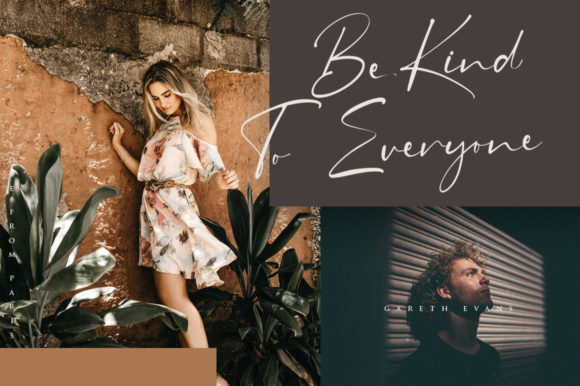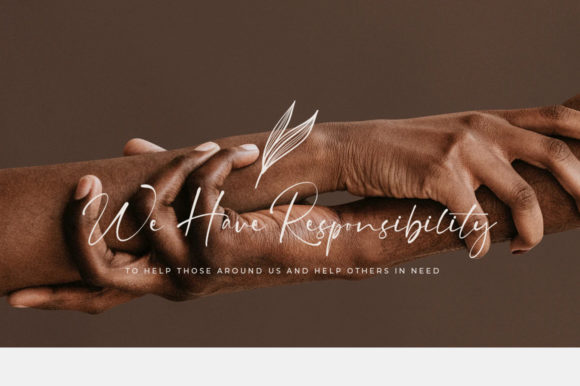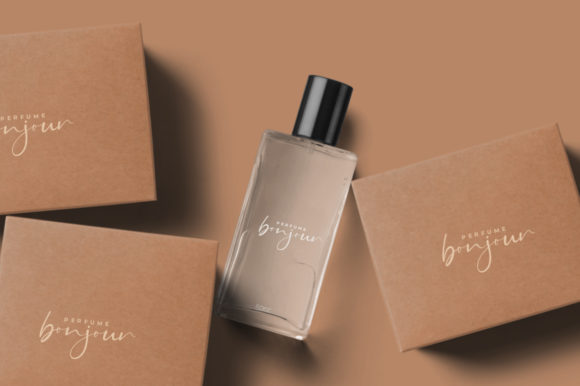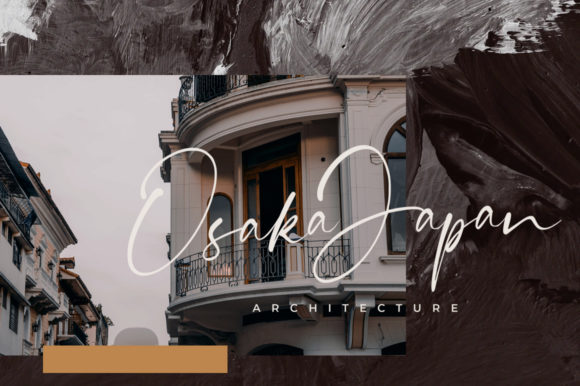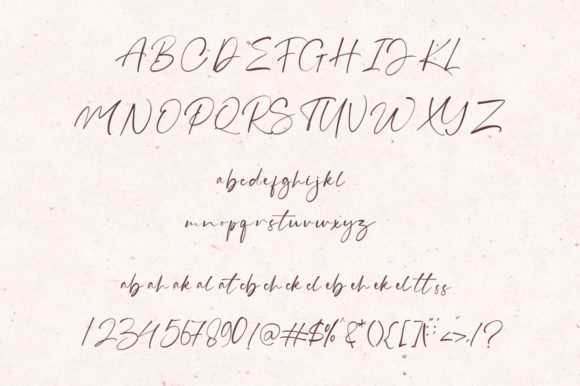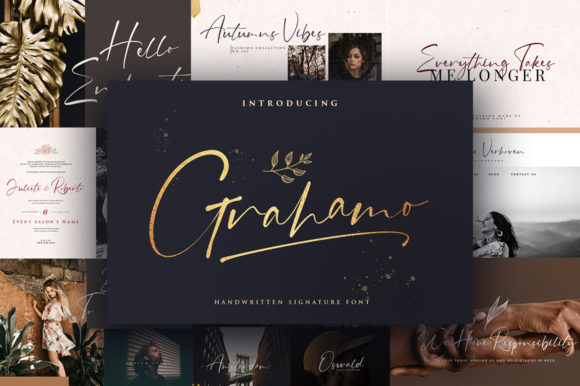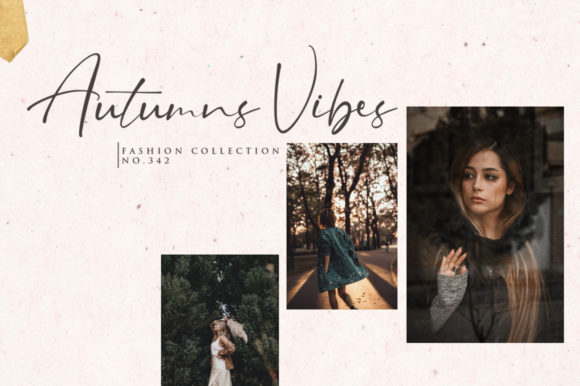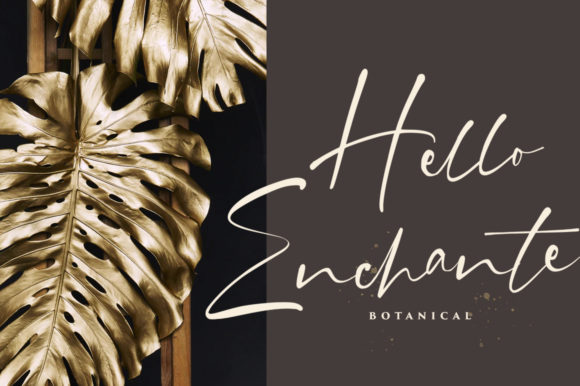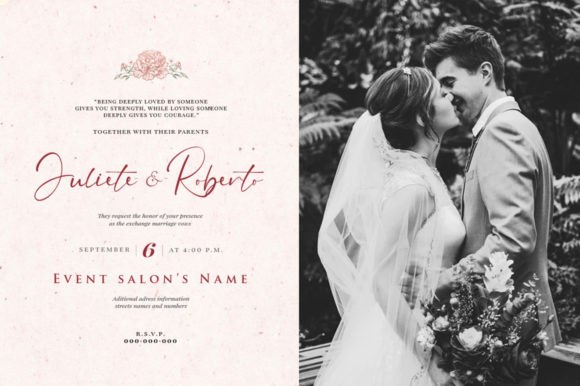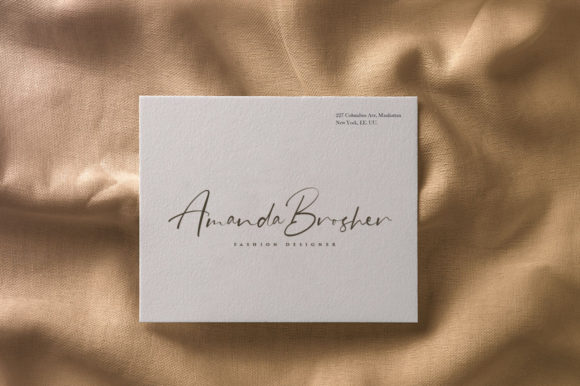
HomeScript FontsGrahamo Font Script Fonts Grahamo Font FacebookXPinterestWhatsApp Grahamo Font Poster 2 Grahamo Font Poster 3 Grahamo Font Poster 4 Grahamo Font Poster 5 Grahamo Font Poster 6 Grahamo Font Poster 7 Grahamo Font Poster 8 Grahamo Font Poster 9 Grahamo Font Poster 10 Grahamo Font Poster 11 Grahamo Font Poster 12 Grahamo Font Poster 13 Grahamo Font Poster 14 Grahamo Font Poster 15 About Grahamo Font Grahamo is a sweet and charming script with a bold vibe. Get inspired by its unique style! DOWNLOAD ON CREATIVE FABRICAThis font is sold and delivered by Creative Fabrica. Font Canyon may earn a commission if you buy through this link. People also explored Hodtelvo Font Sisters Font Sweet Wanderlust Font Follio Cooper Font Vintage Valentine Font Wandery Font Clara Signature Font Yearbook Christmas Font Cardolith Font 431 0 TagsGrahamo Font Previous articleCanthika FontNext articleAlmost 100% Free Font LEAVE A REPLY Cancel reply Comment: Please enter your comment! Name:* Please enter your name here Email:* You have entered an incorrect email address! Please enter your email address here Website: Save my name, email, and website in this browser for the next time I comment. Personal Use Free Rasiday Personal Use Free Read more about this font Vanilla Whale Personal Use Free Read more about this font Planning Personal Use Free Read more about this font Yesstea Personal Use Free Read more about this font BLOG Free Fonts Risk: Why Free Fonts Can Be Dangerous for Designers Free Fonts Risk: Why Free Fonts Can Be Dangerous for Designers Using free fonts is a common practice in web and graphic design. However, the... Best Fonts for T-Shirt Design – Top 2025 Picks The 10 Best Handwriting Fonts to Add Personality to Your Designs Exploring Font Trends